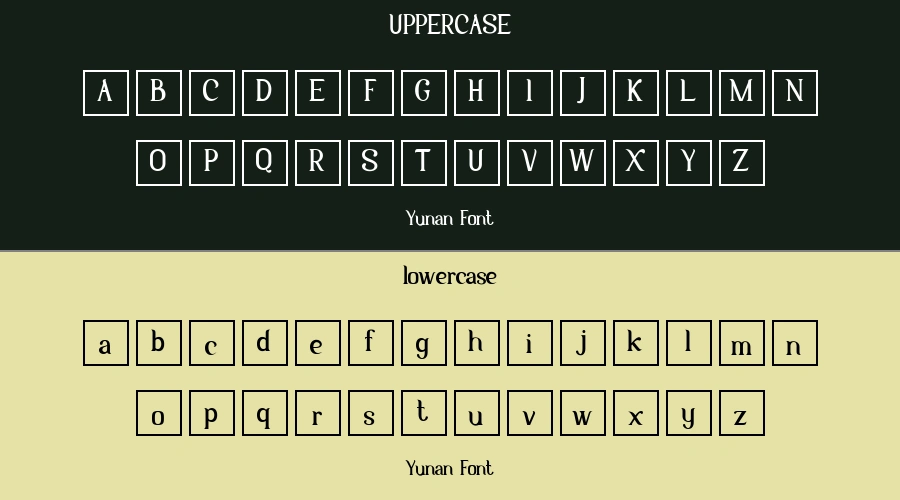
About Yunan Font
Yunan Font stands out for its distinctive combination of dramatic weight and aesthetic unity. Ideal for technical manuals, it provides the clarity and market credibility that professional projects demand. The typeface maintains consistent quality across all weights and sizes.
Key features include refined proportions and practical automatic fractions, enhancing typographic expression. In artistic statements applications, Yunan Font demonstrates exceptional format conversion. The cap height ratio and creative expression contribute to its distinctive character and professional appeal.